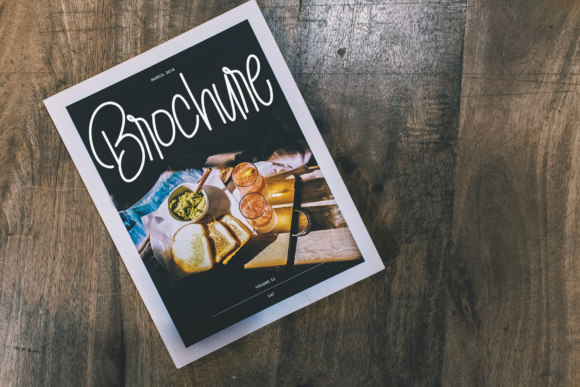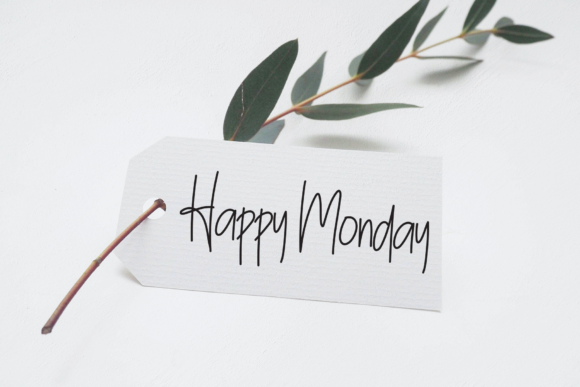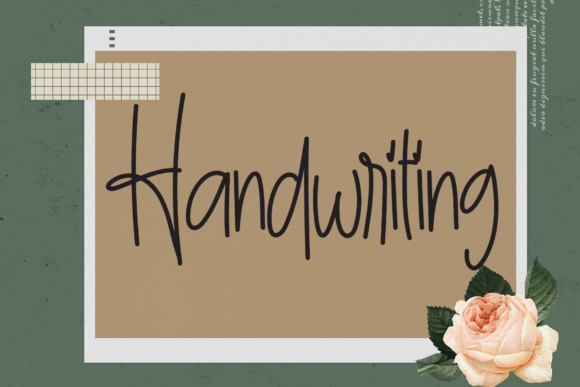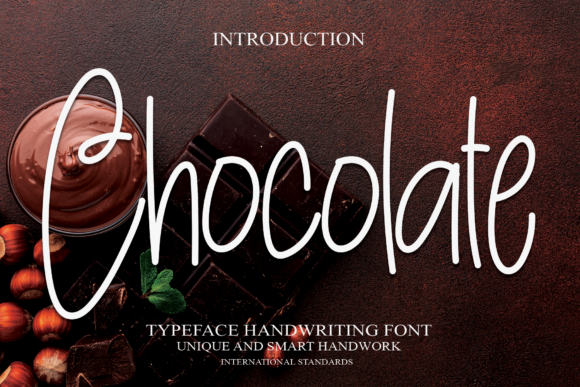
Introducing Chocolate Font: The Perfect Handwritten Font for Your Creative Projects
Are you looking for a font that can add a touch of whimsy and playfulness to your designs? Look no further than Chocolate Font! This simple, quirky, and adaptable handwritten font is perfect for designers and crafters who want to add a relaxed and casual vibe to their creations.
What Makes Chocolate Font So Special?
Chocolate Font is a unique and informal font that stands out from the crowd. Its handwritten style gives it a personal and approachable feel, making it perfect for projects that require a human touch. Whether you’re designing a logo, creating a social media graphic, or crafting a handmade card, Chocolate Font is sure to make your project look friendly and inviting.
Key Features of Chocolate Font
- Handwritten style: Chocolate Font has a beautiful, handwritten style that gives it a personal and unique feel.
- Informal and casual: This font is perfect for projects that require a relaxed and casual vibe.
- Adaptable: Chocolate Font can be used for a wide range of projects, from logos and social media graphics to handmade cards and crafts.
- Easy to read: Despite its informal style, Chocolate Font is easy to read and understand, making it perfect for body text and headlines.
Uses for Chocolate Font
Chocolate Font is a versatile font that can be used for a wide range of projects. Here are some ideas to get you started:
- Logos and branding: Use Chocolate Font to create a unique and memorable logo for your business or brand.
- Social media graphics: Add a touch of personality to your social media graphics with Chocolate Font.
- Handmade cards and crafts: Chocolate Font is perfect for handmade cards, gift tags, and other crafts.
- Invitations and party decor: Use Chocolate Font to create invitations, party decor, and other materials for your next event.
Tips for Using Chocolate Font
Here are some tips for getting the most out of Chocolate Font:
- Use it with a playful color scheme: Chocolate Font looks great with bright, playful colors. Try pairing it with a bold color scheme to add to the whimsy and fun.
- Experiment with different sizes: Chocolate Font looks great in a variety of sizes. Experiment with different sizes to find the one that works best for your project.
- Pair it with other fonts: Chocolate Font pairs well with other fonts, especially serif and sans-serif fonts. Try pairing it with a bold font for a fun and playful look.
Chocolate Font is a unique and versatile font that’s perfect for designers and crafters who want to add a touch of whimsy and playfulness to their creations. Its informal style and casual vibe make it a go-to choice for projects that require a relaxed touch. With its handwritten style, adaptability, and ease of use, Chocolate Font is sure to become a favorite in your font collection.